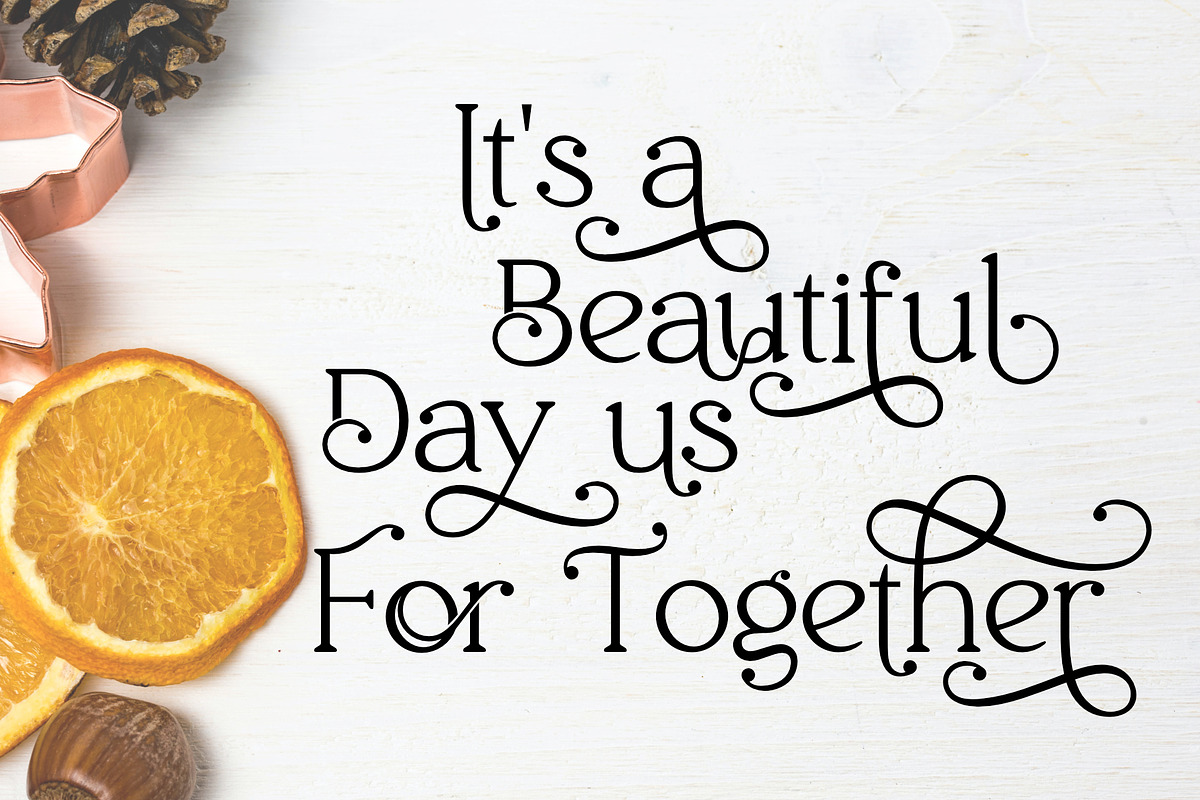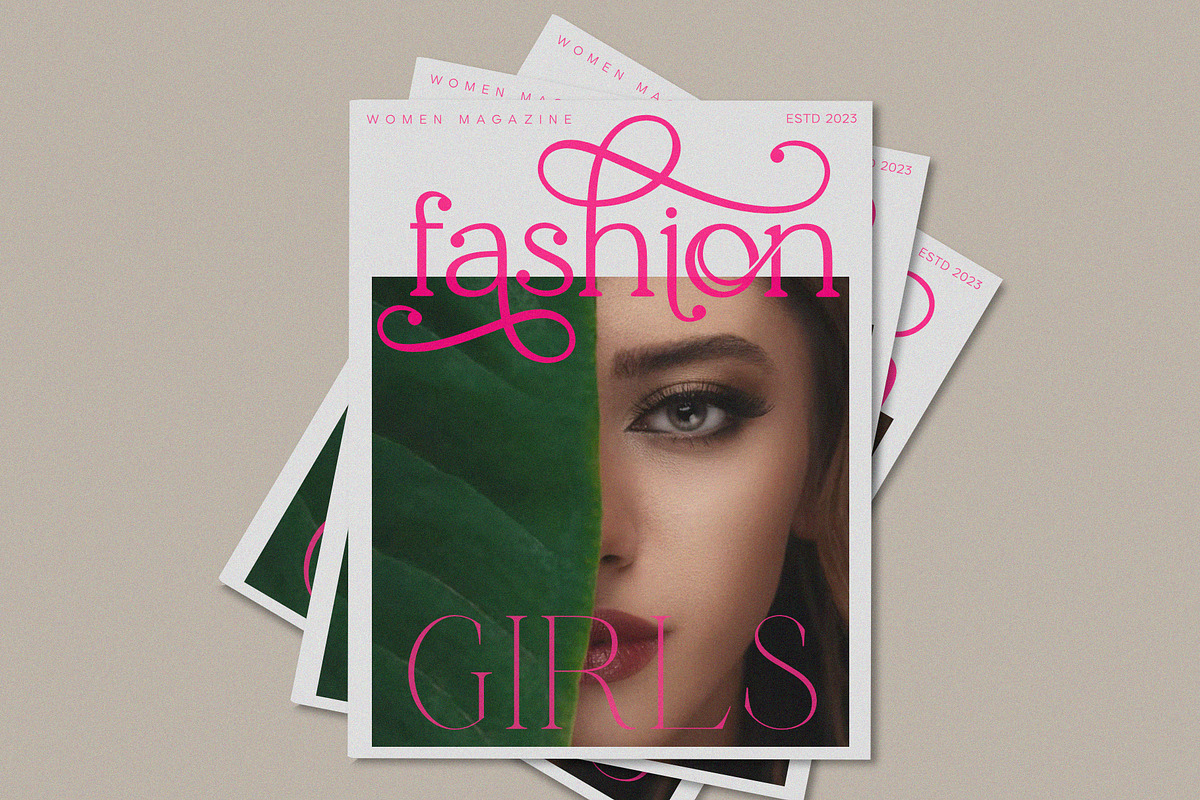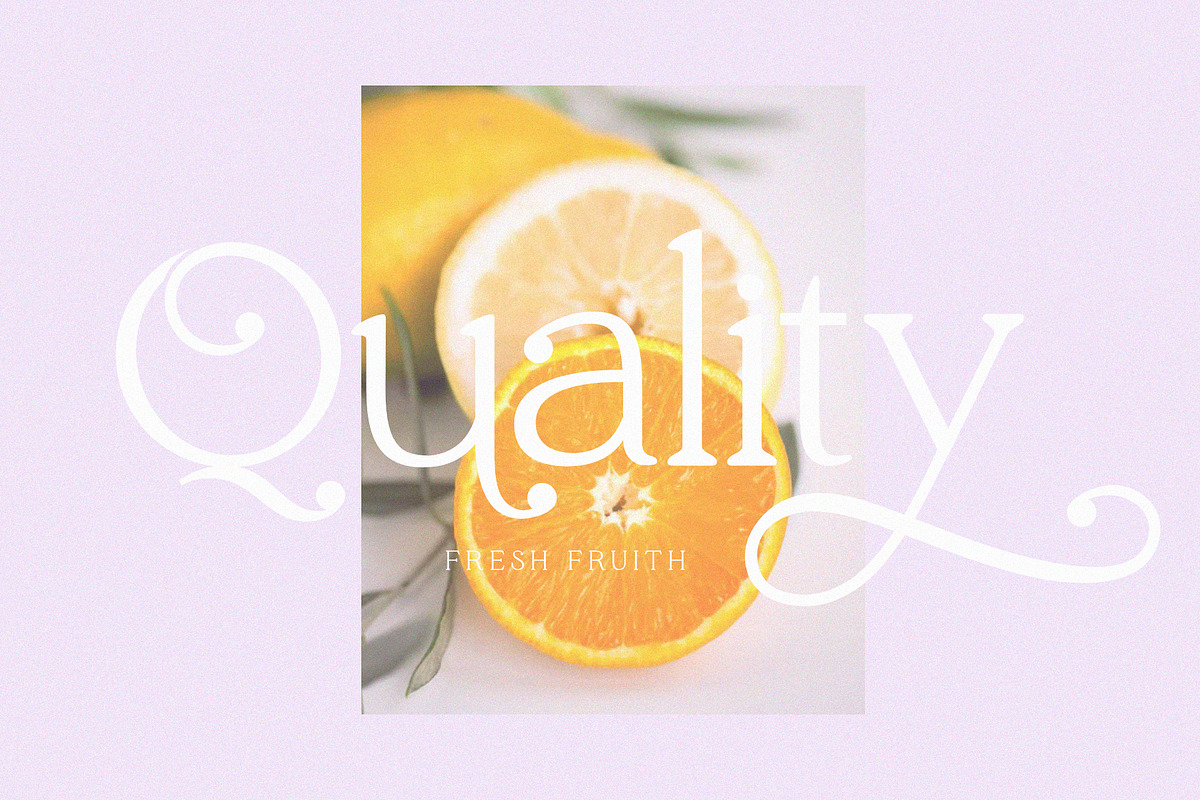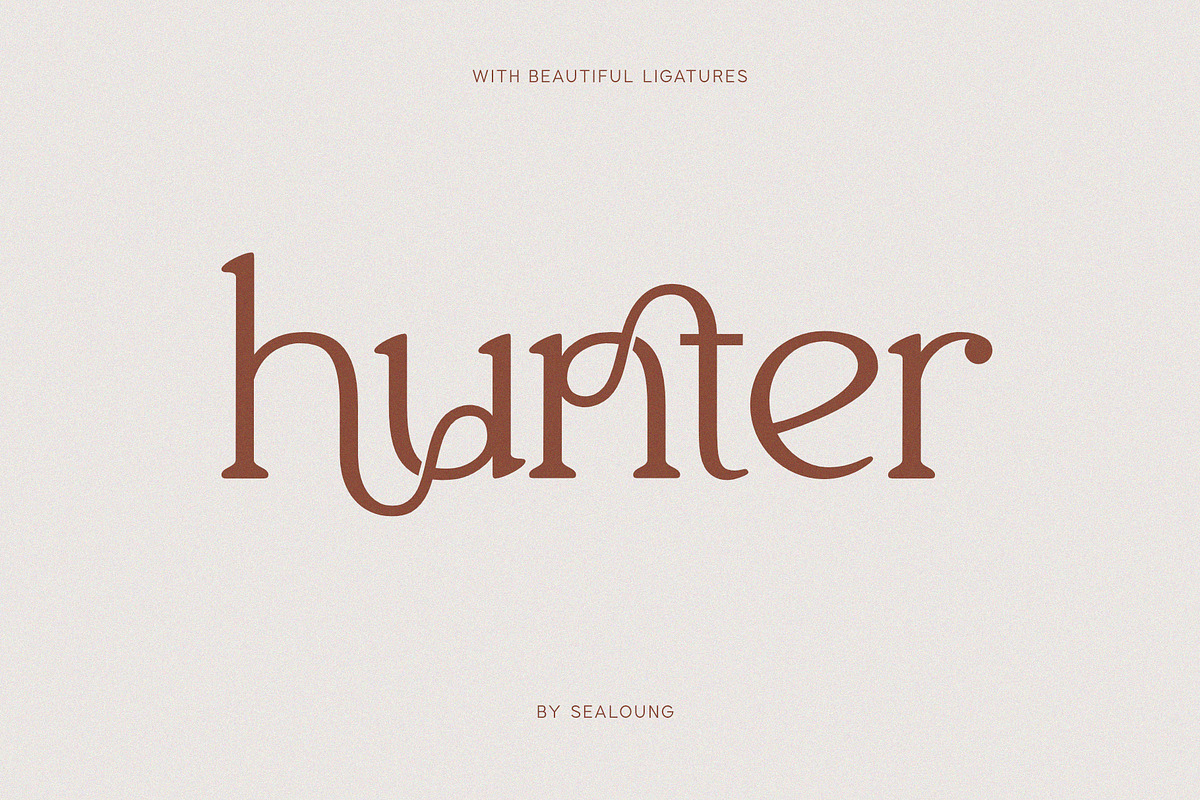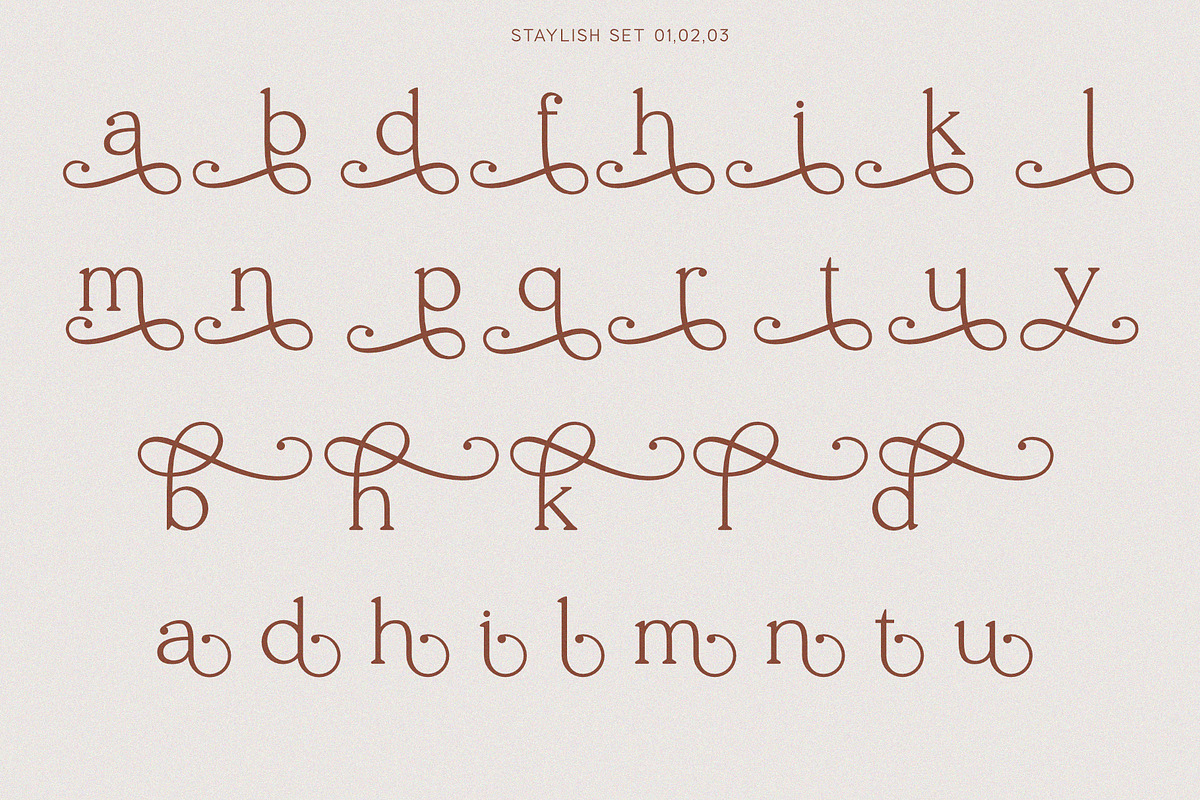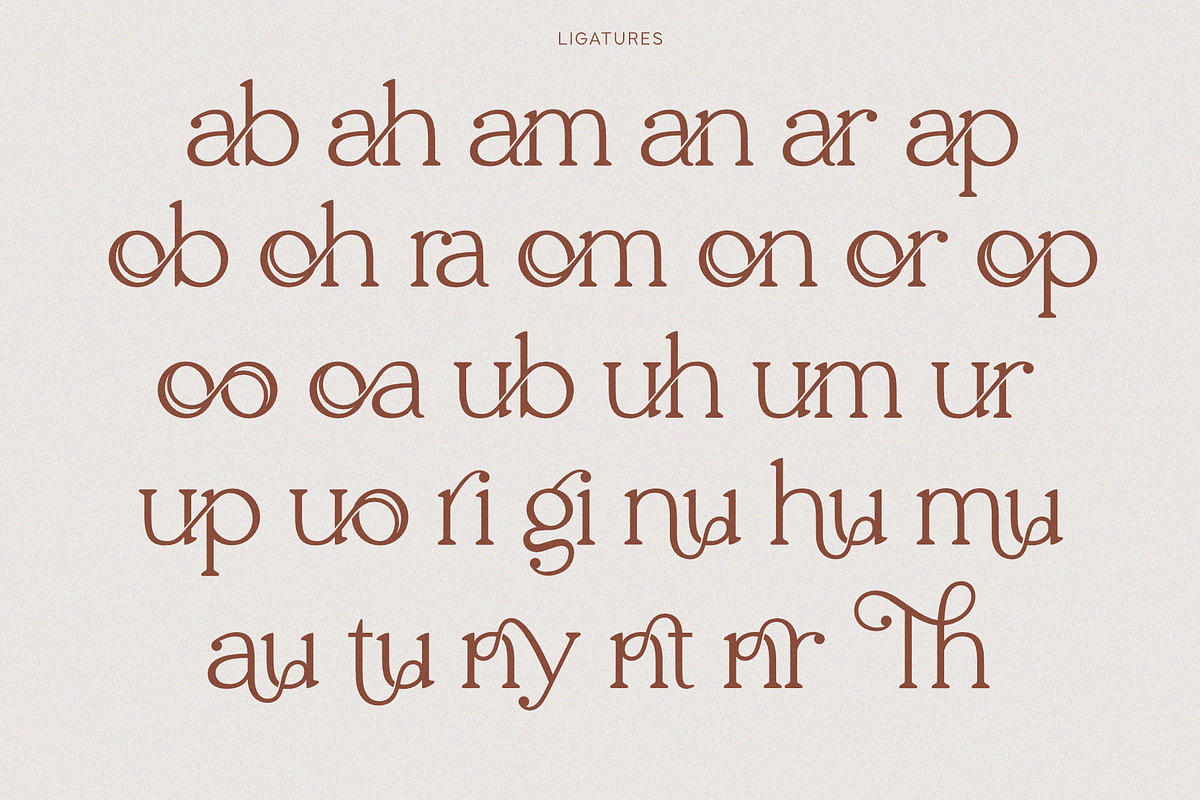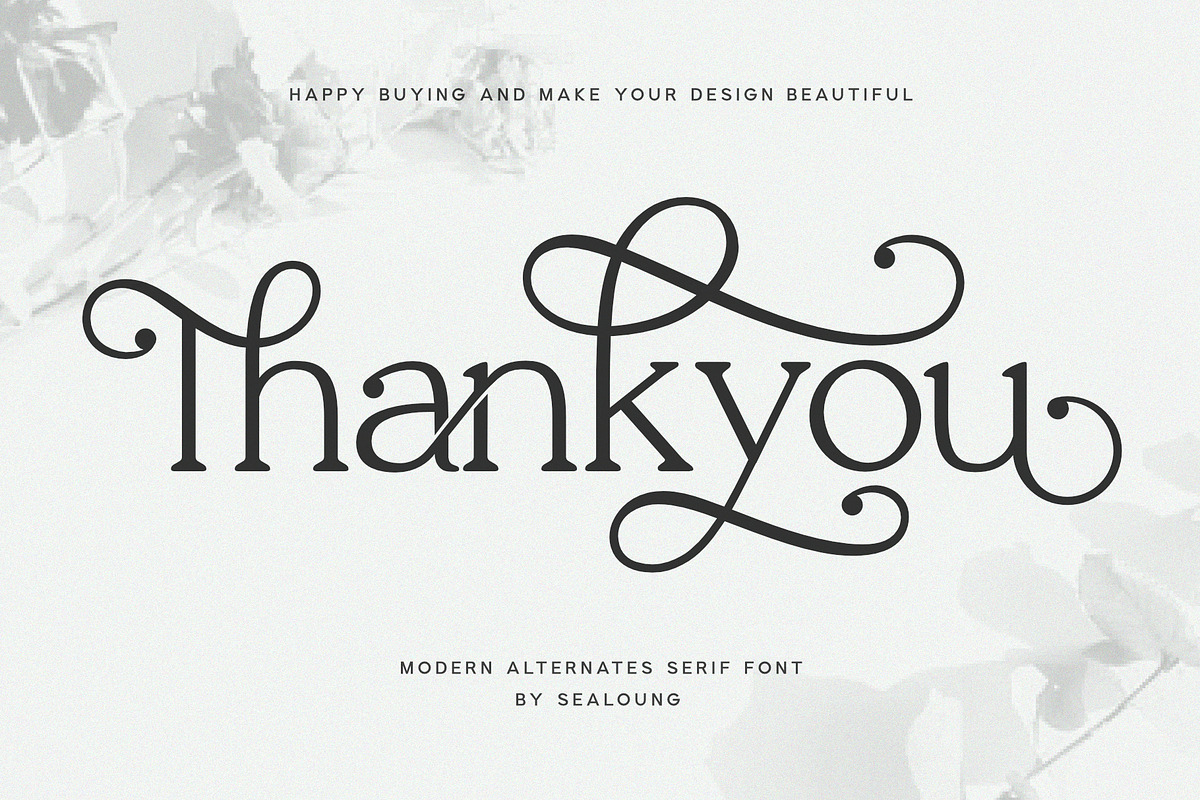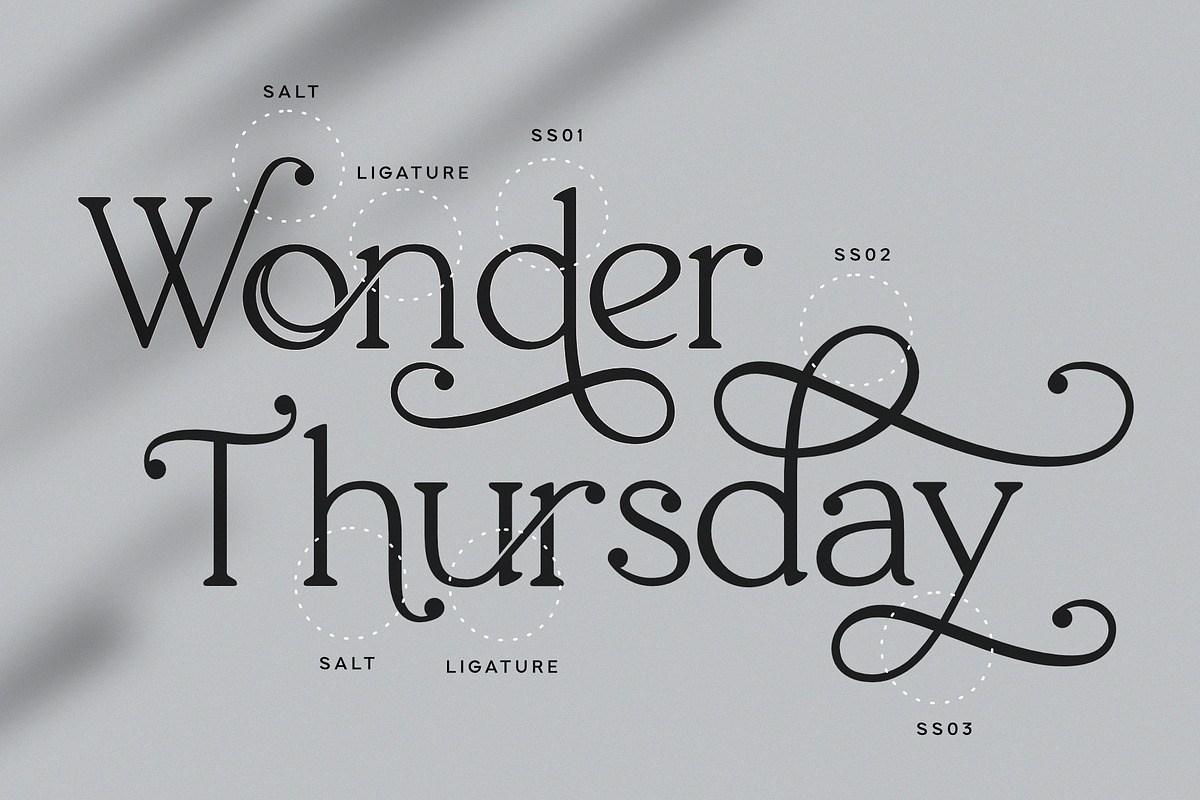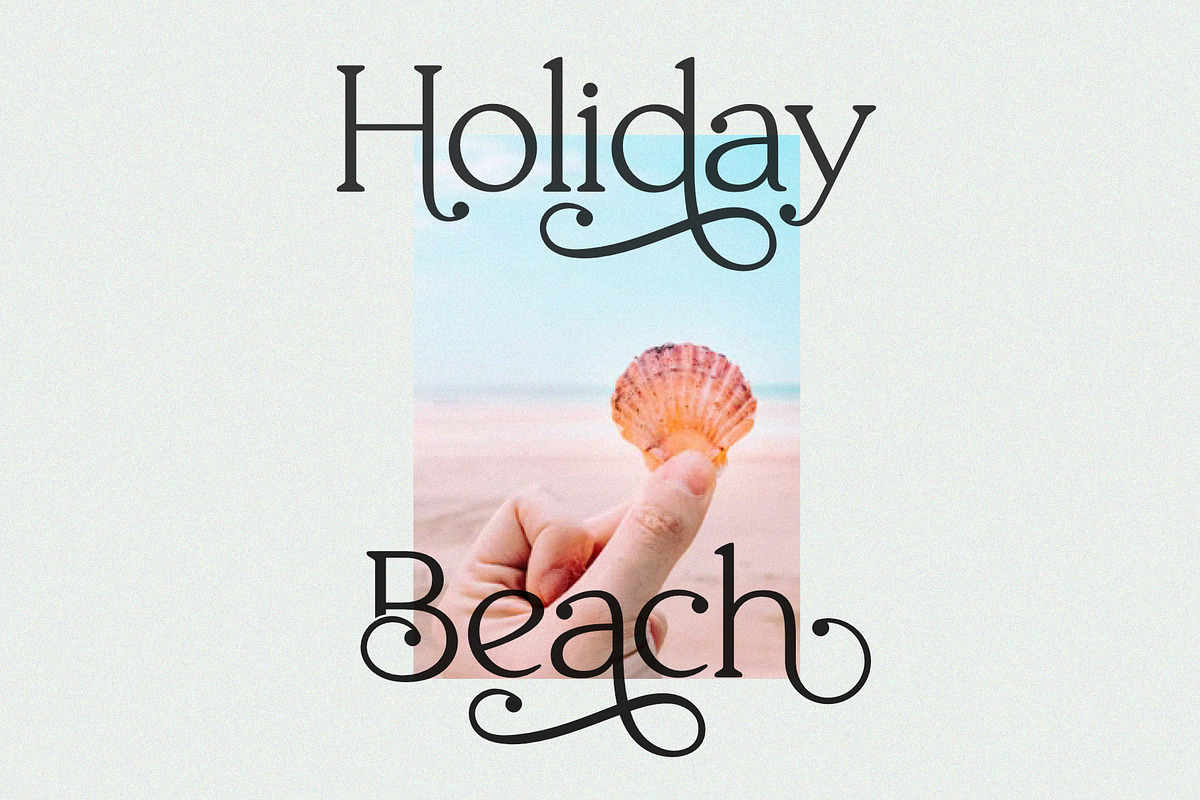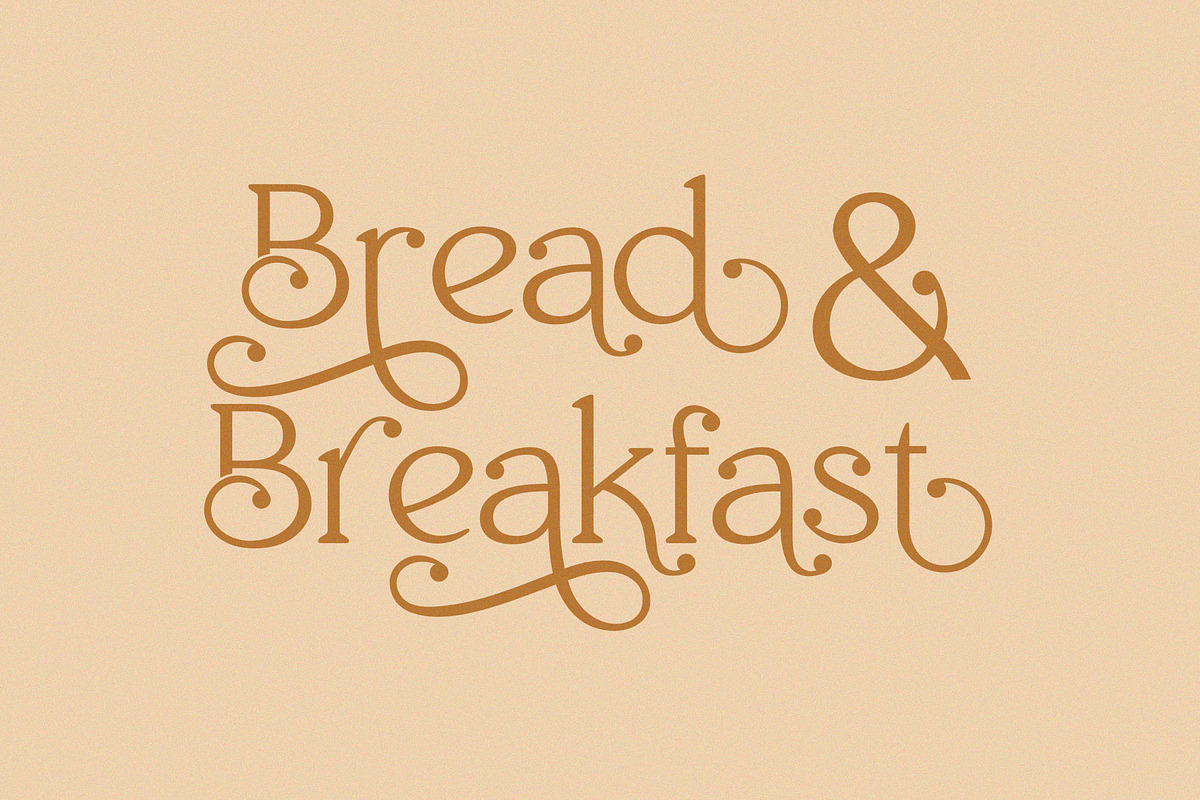
Thaknus
Thaknus is a beautiful, elegant, and unique font that has many flowing style alternates and also uses binders to seamlessly connect letters. Perfect for branding, logos, invitations, mastheads, and more. Thaknus has 32 ligatures, 73 alternates for an upper and lower case as well as numbers and punctuation making it very versatile for your beautiful designs.